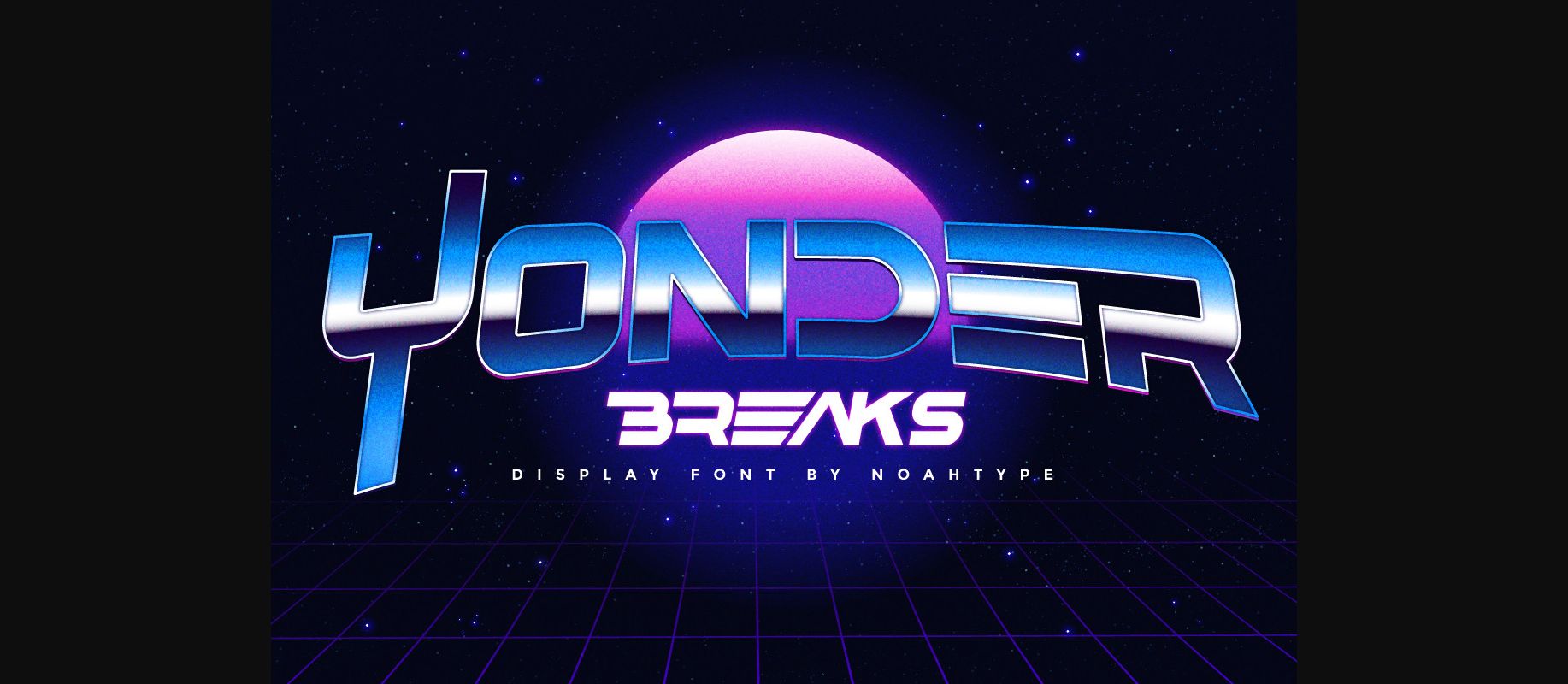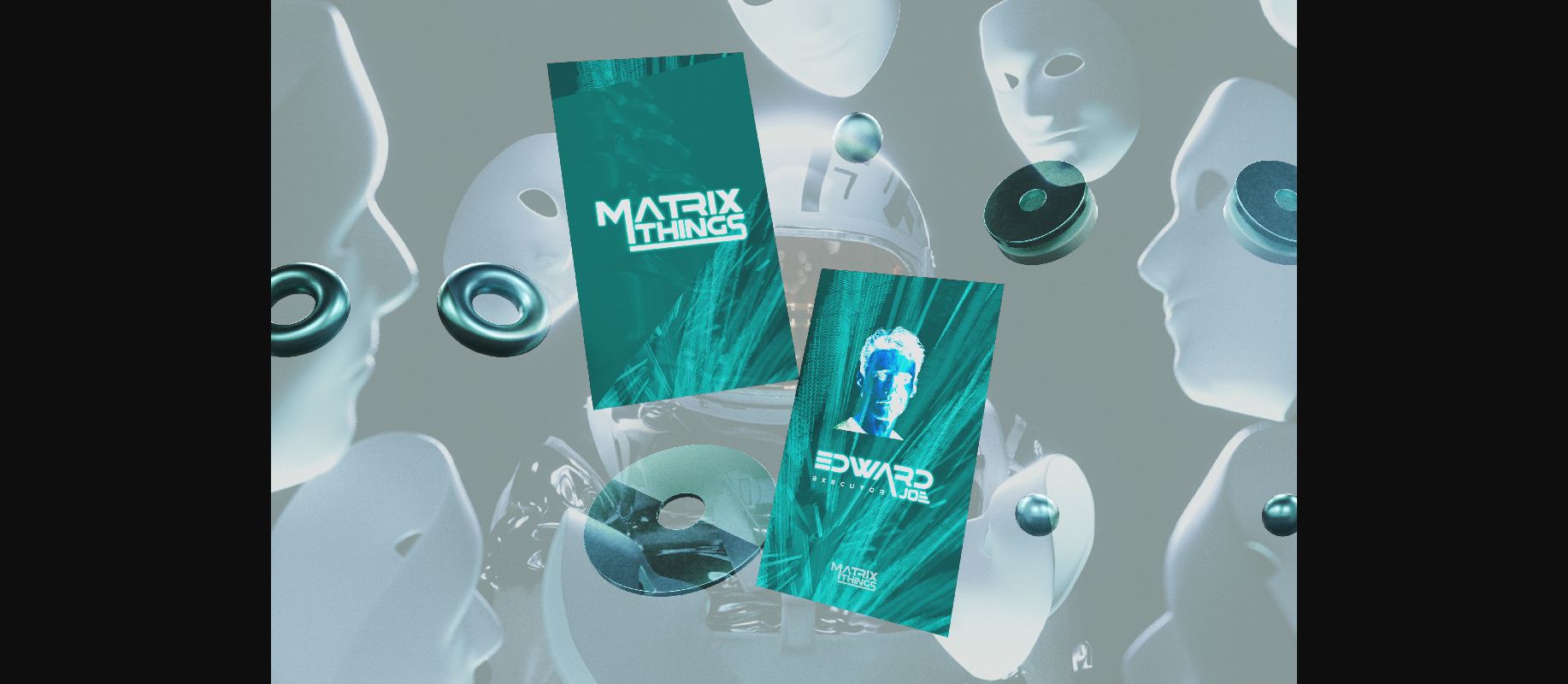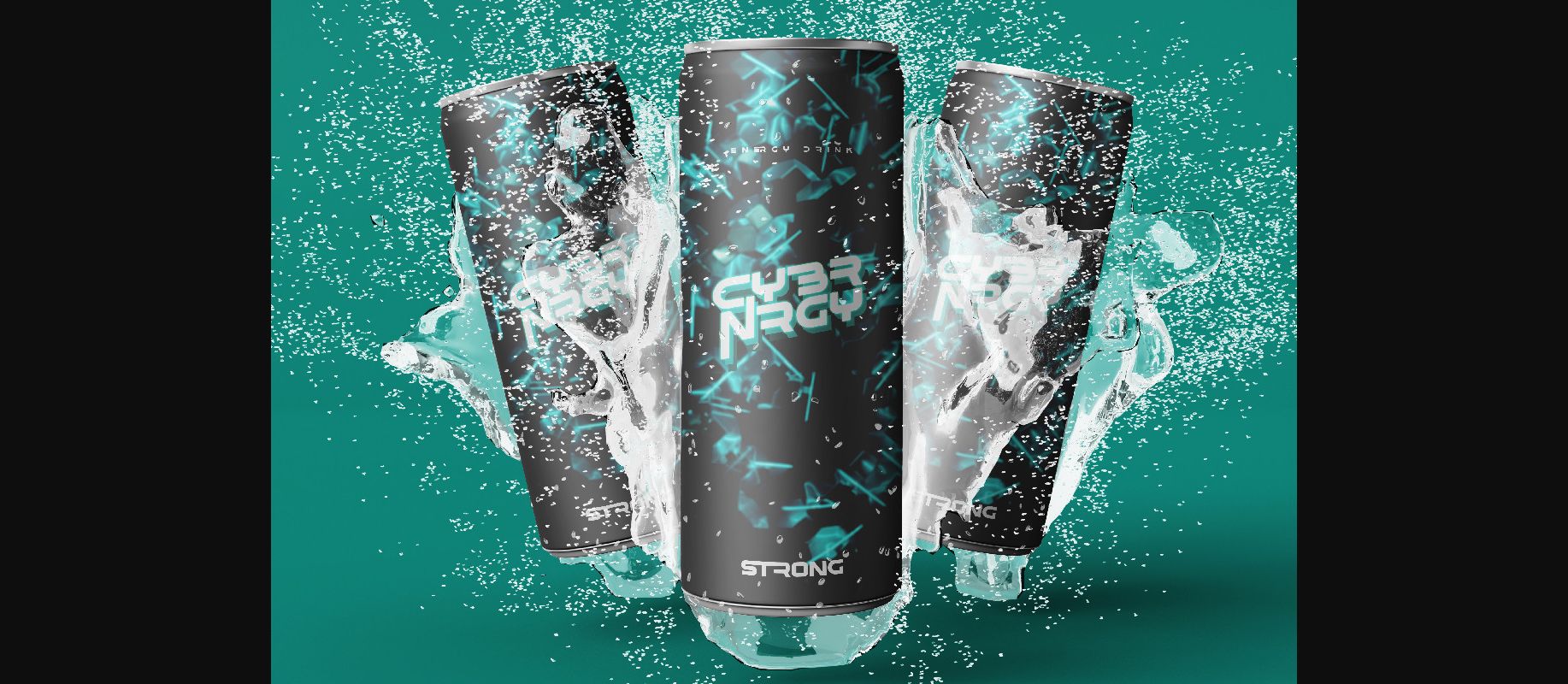
About Yonder Breaks Font
Yonder Breaks Font is a futuristic display font with two style options: Regular and Italic. This font is inspired by future life in outer space in a modern style and still easy to read. It would be perfect for many industries, such as advertising, drink brand, event or festival, fashion, game, movie, printing, publishing, space, techno, and more!